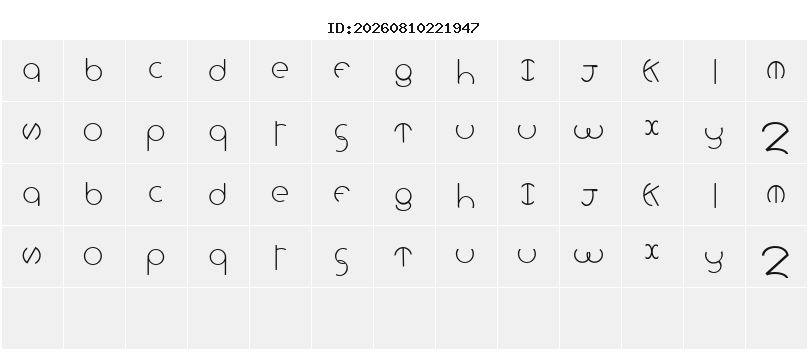
rollingdeep Preview
• Font Name: rollingdeep
• Font ID: rollingdeep:Version 1.00
• Full Font Name: rollingdeep
• Version: Version 1.00 March 16, 2012, initial release
• PostScript Name: rollingdeep
• Designer: max infeld
• Description: we be rolling deep
About rollingdeep.ttf
rollingdeep.ttf is a modern, elegant sans-serif font designed for ultimate readability and visual harmony. Perfect for branding, headlines, web design, and print materials.